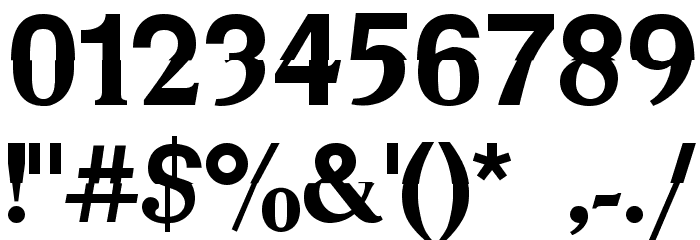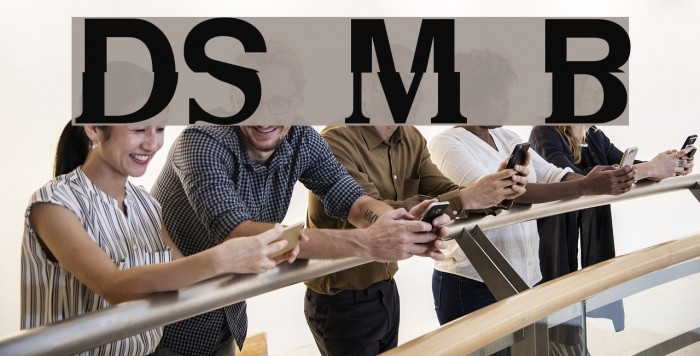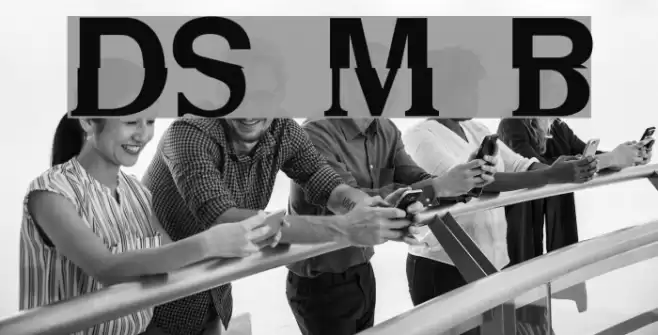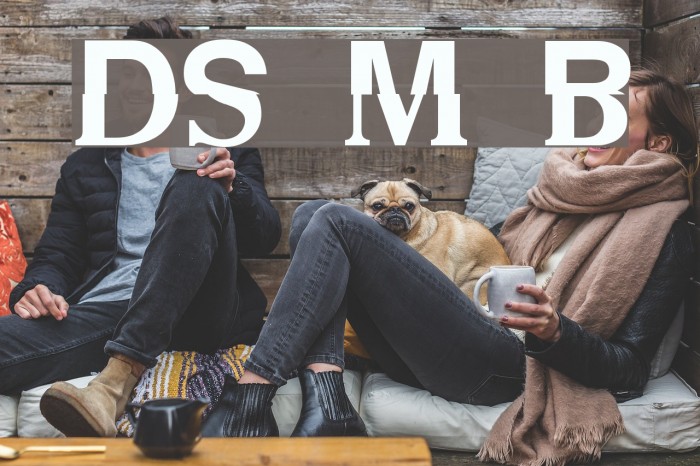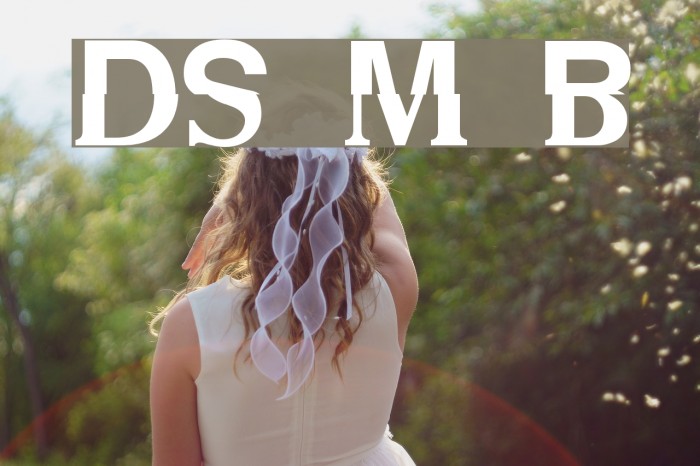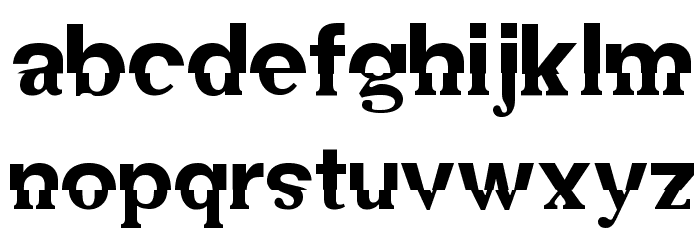
DS Mechanical Bold Font
✎ Broken
| Stil general | Modern, Industrial |
| Caz de utilizare | Headlines, Logos, Signage |
| Proiecte propuse | Ideal for branding, signage, posters, and any project requiring a bold, industrial look. |